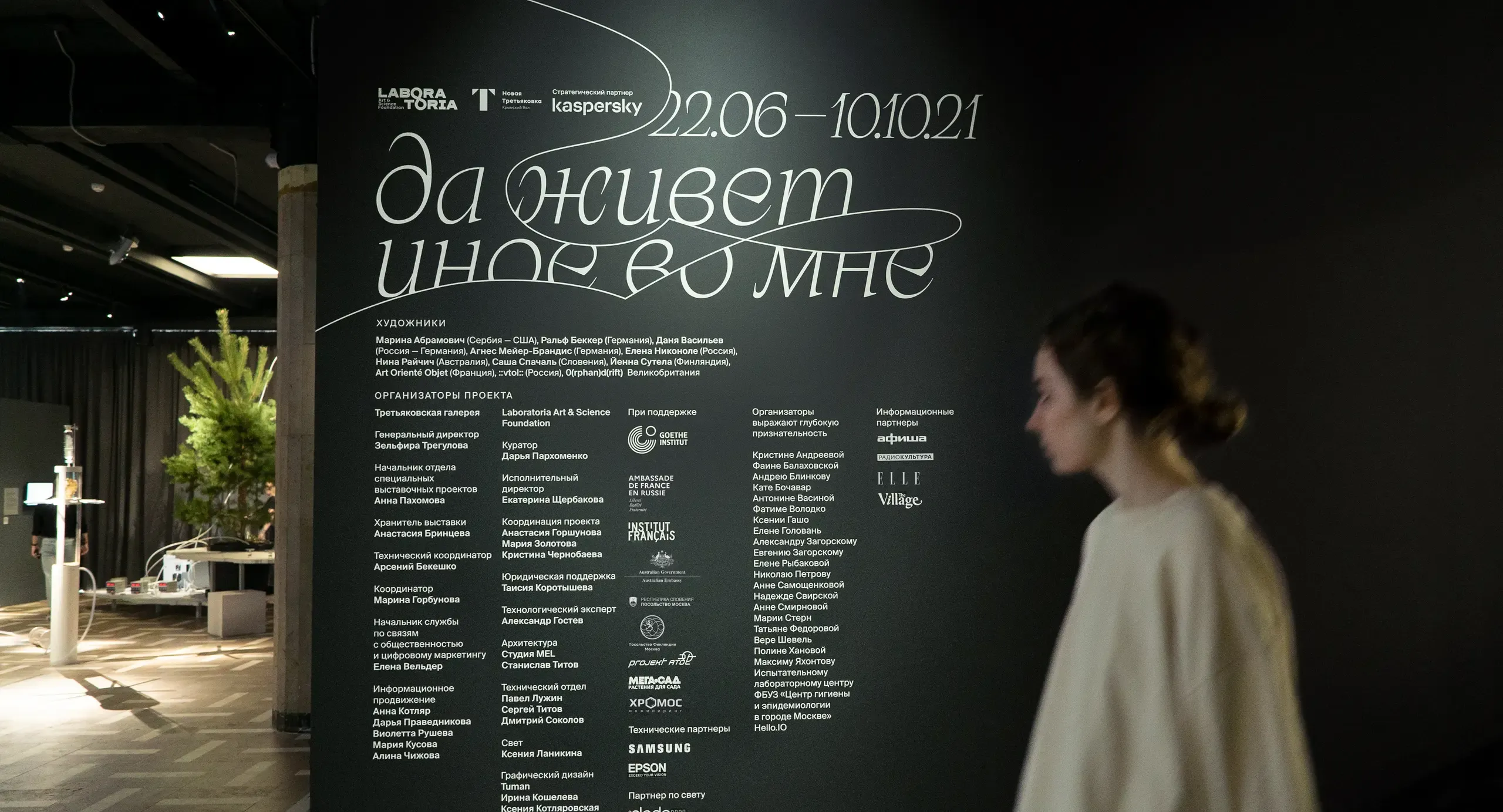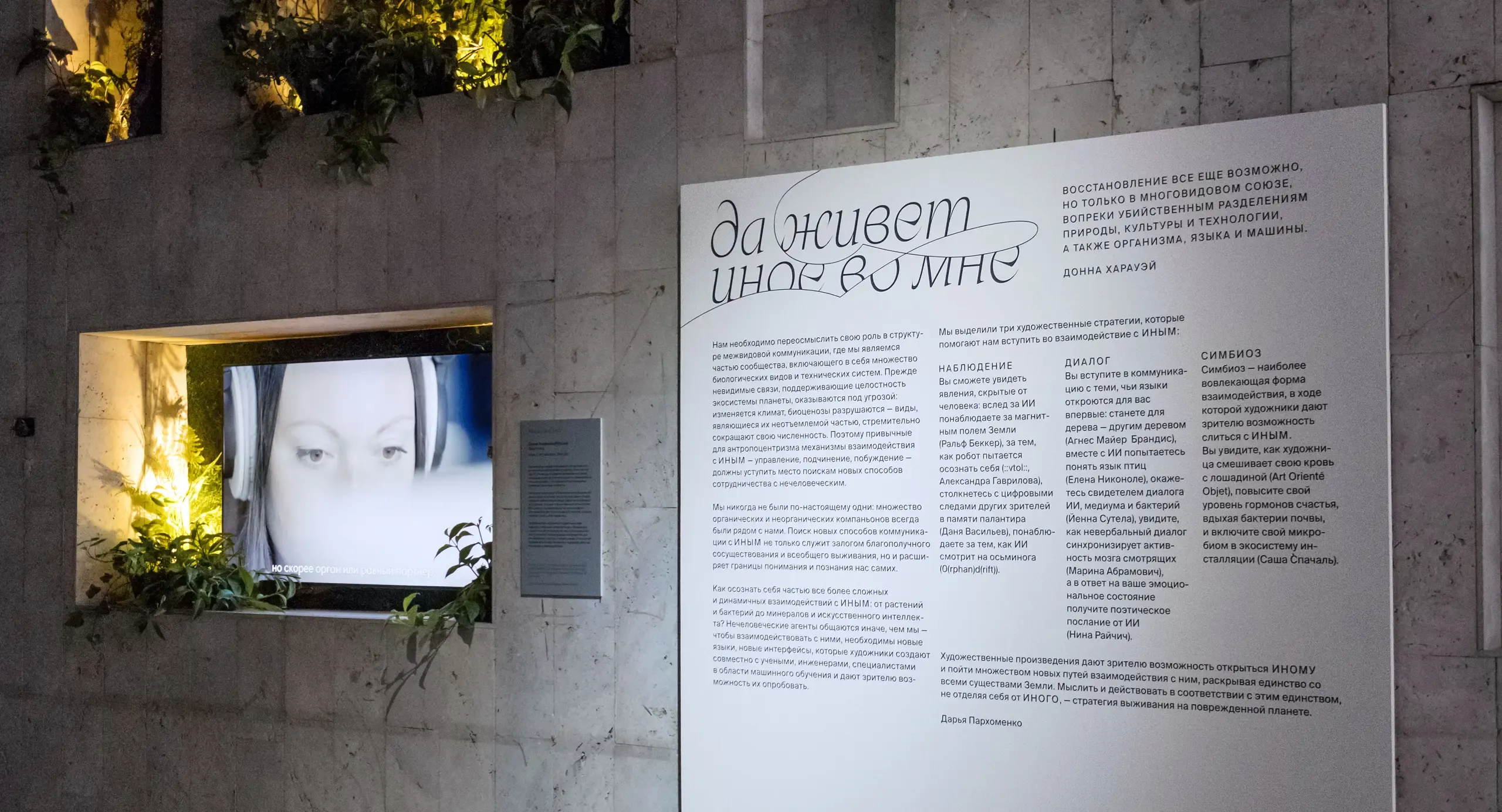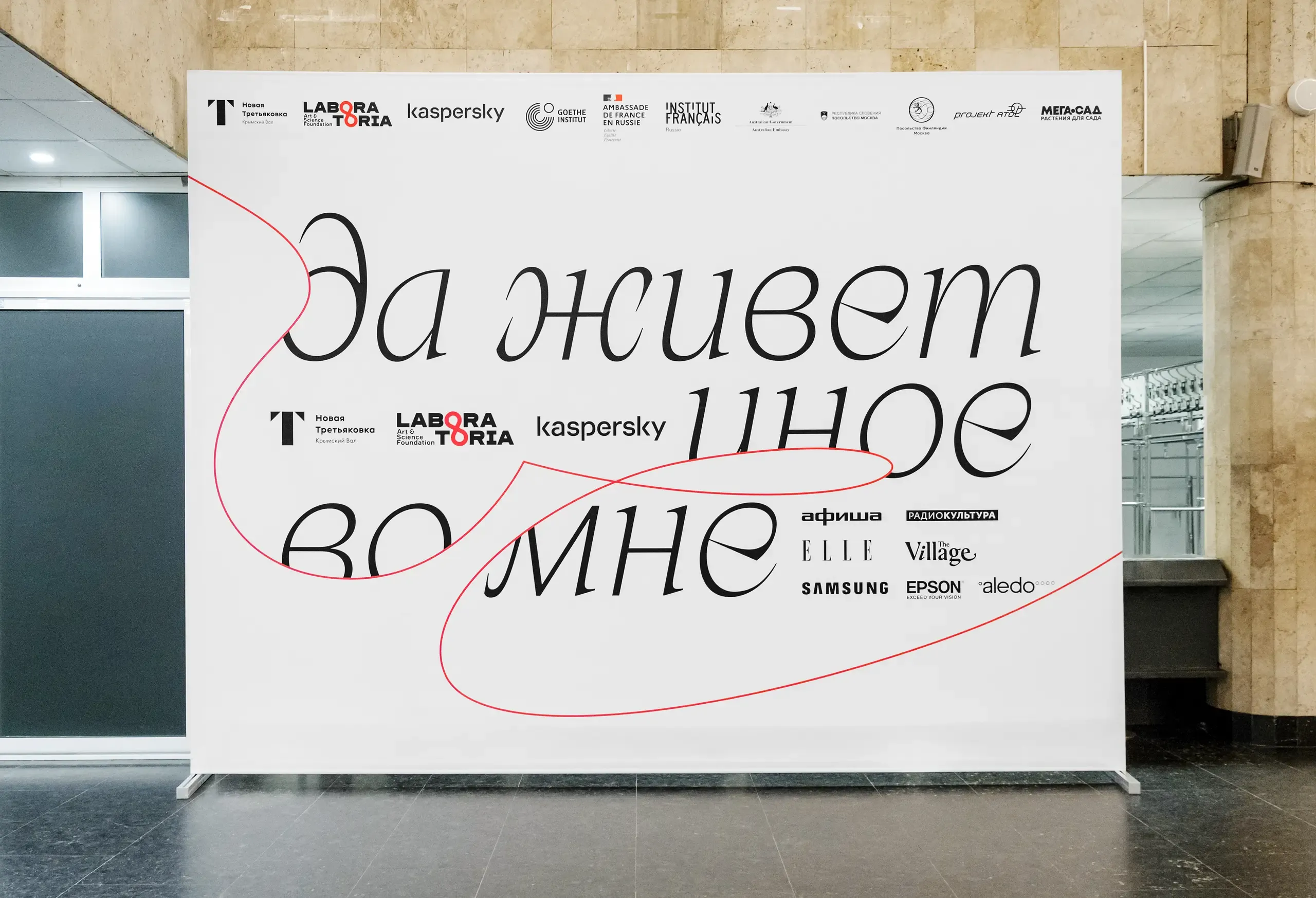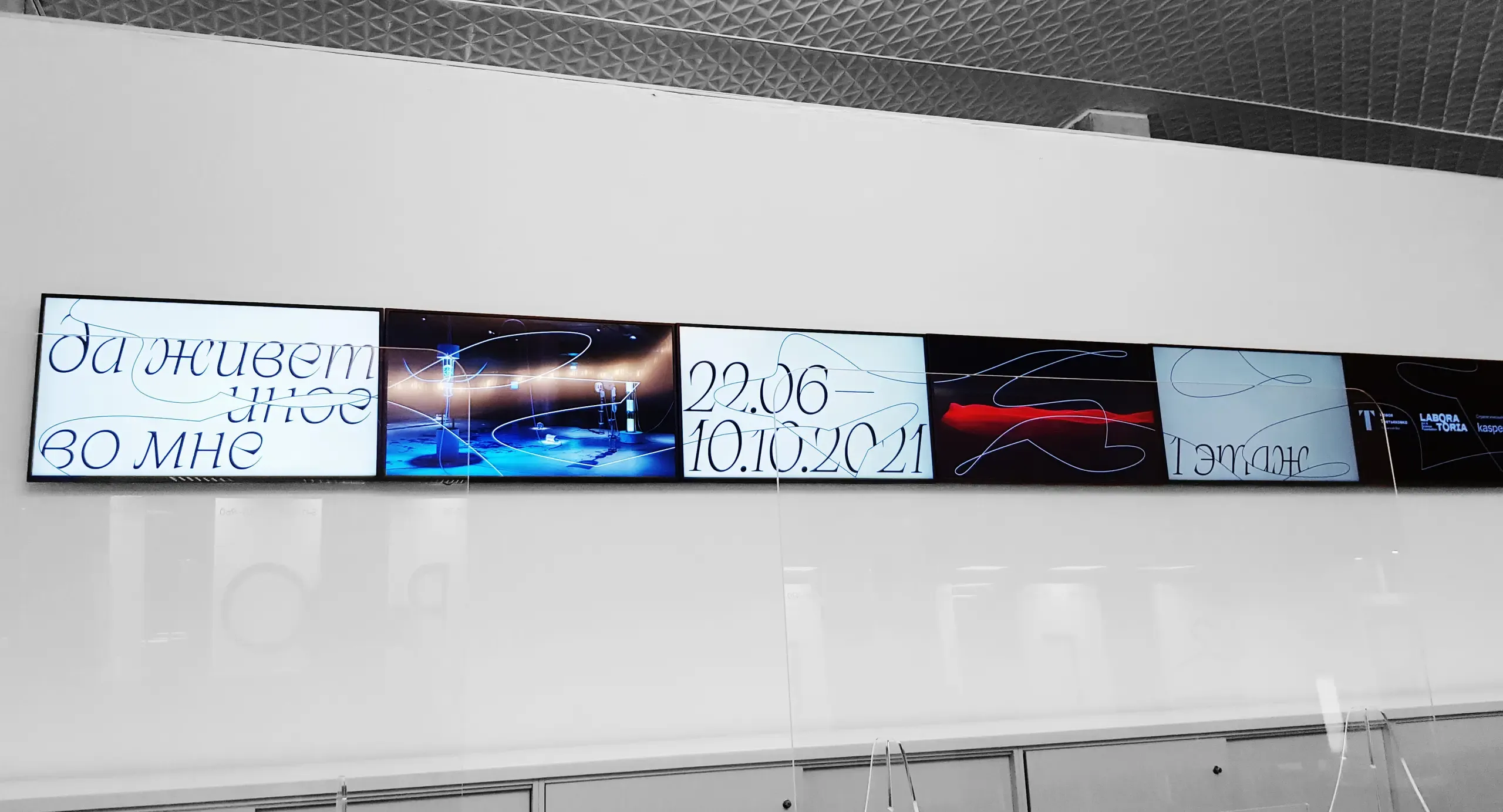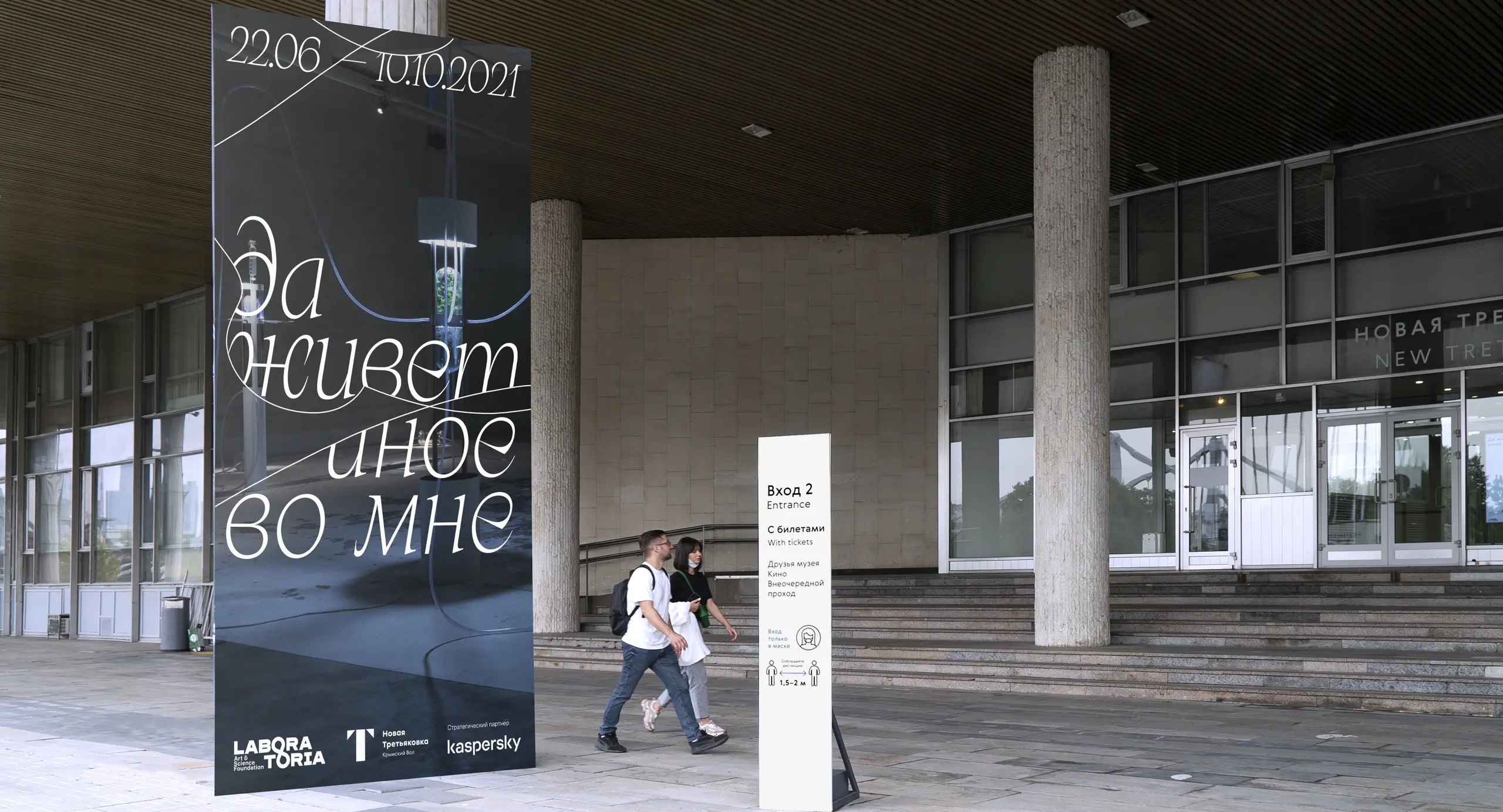
Apoc in use: Let the Other Live in Me exhibition
The exhibition Да живет иное во мне (“Let the Other Live in Me”)
Exhibition art direction by Tuman Studio.
Dedicated to human communication with other forms of life, such as animals, plants, bacteria, large-scale physical phenomena and technological systems. Human being is on the border of two worlds, biological and technological, belonging to both of them at the same time. The viewers of the exhibition get a unique experience of interaction with the other, based not on the mechanisms of direct control and subordination, but on the strategies of symbiosis and dialogue.
The exhibition was held at the Tretyakov Gallery in the Laboratoria Art & Science space. Among the featured artists were Marina Abramović, Ralf Baecker, Art Orienté objet, Agnes Mayer-Brandis, Saša Spačal, Jenna Sutela, Elena Nikonole, Nina Rajcic, and Danya Vasiliev.
The design of the exhibition was created by the Moscow based studio Tuman and shows an engaging use of the Cyrillic version of Apoc Italic in an organic aesthetic. Apoc is supported by Suisse Int’l. The design team comprised Ira Kosheleva, Ksenia Kotlyarovskaya, and Konstantin Tolstikov. Photography by Natalia Polskaya, Anton Galetskiy, Nailya Karimova, Yulia Selezneva, Anna Kolysheva.